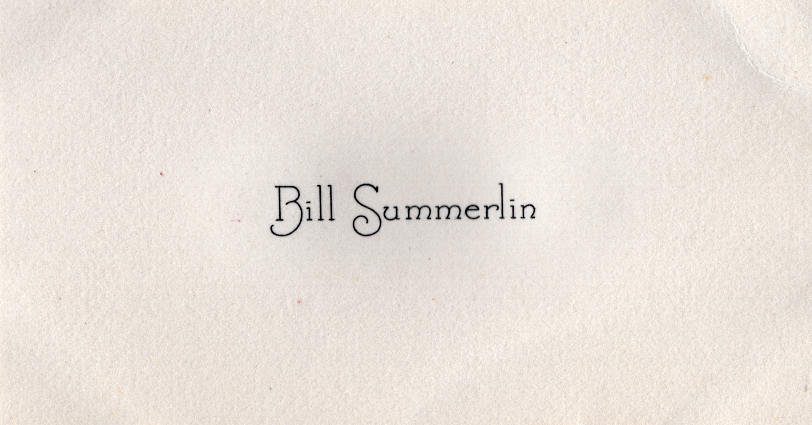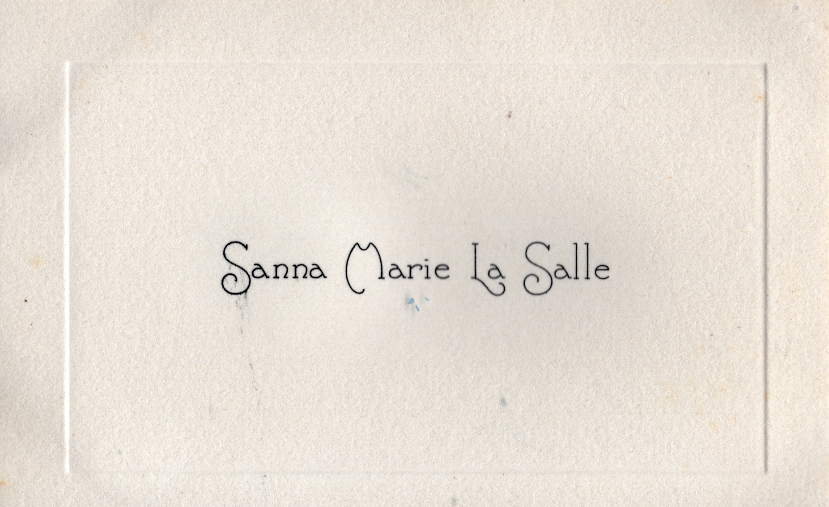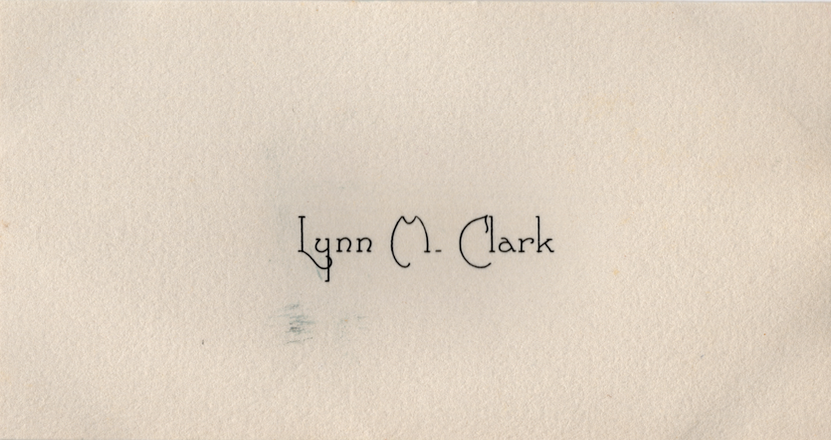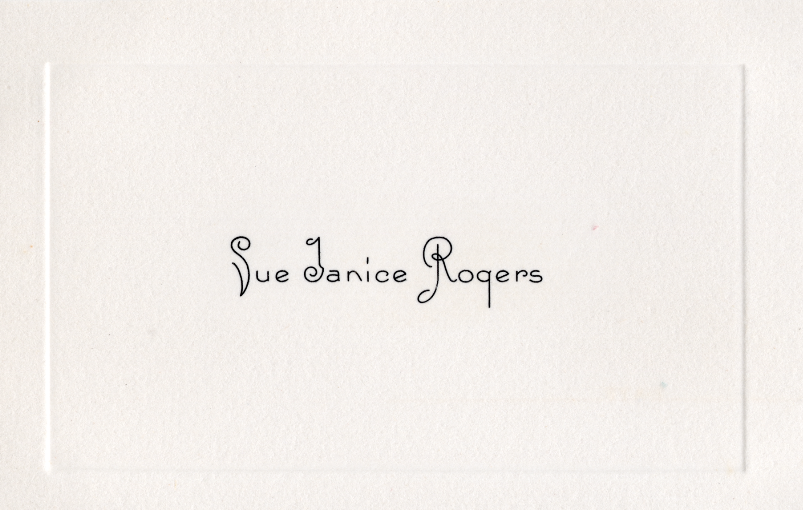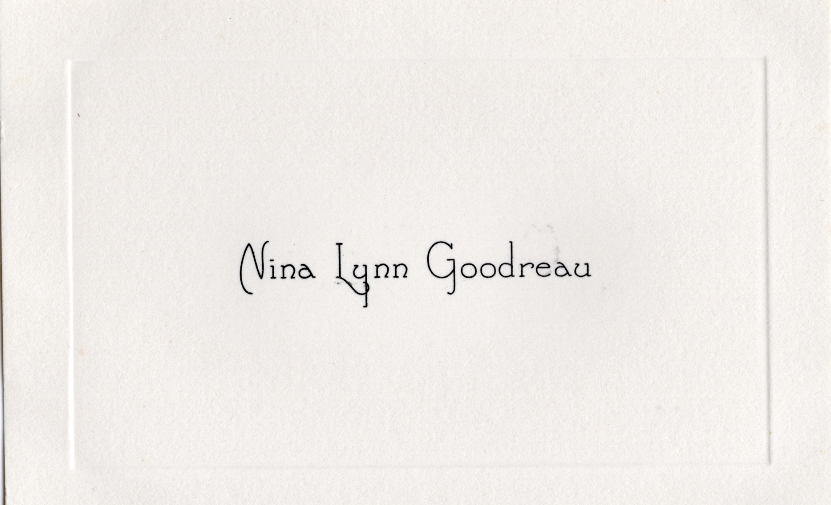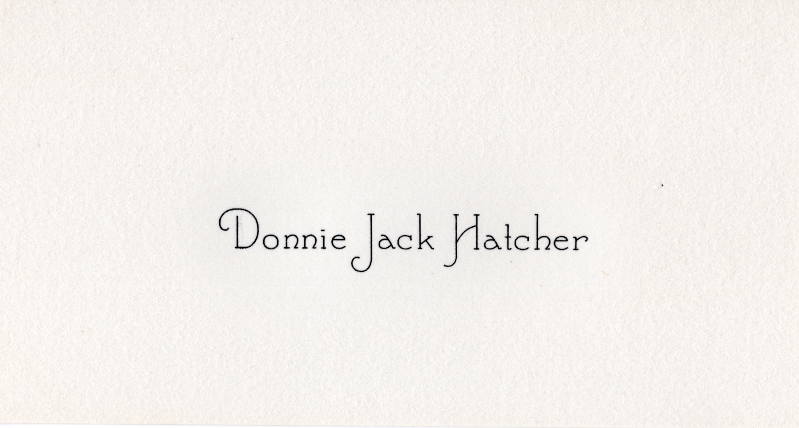
Looking for the original typeface from some 1940's family ephemera
I would love to see if anyone can place the original typeface used in some of my grandmother's calling cards from her high school friends. Other related typefaces are fine, but I was looking to find the original. I am currently designing a revival of the typeface and wanted to know more about the originale's history/references.
Some extra information on the ephemera
• From a smaller town in Texas in the 1940's
• Smaller town located in Texas near Louisiana – this tells me it was probably designed much earlier and made it to their local print shop
• Was replicated across many examples of her peer's calling cards (images included)
Any info, ideas, or references would be much appreciated in my hunt to know more about the typeface.
Appears to be from the Cronite Company, and called Houston No. 44.
I don’t think it has ever been digitized before, so looking forward to your revival.